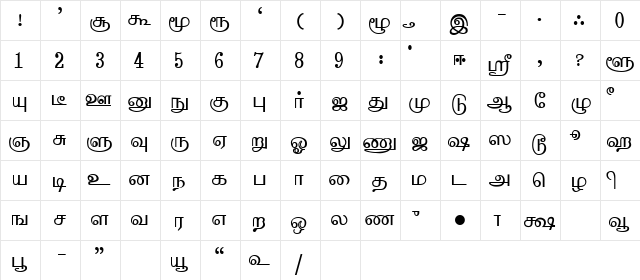
Kurinji Regular Font Preview
Kurinji Regular
Design Context for Kurinji Typeface
Kurinji offers clean, dependable letterforms without strong stylistic allegiance, making it a practical choice for designers who need flexibility.